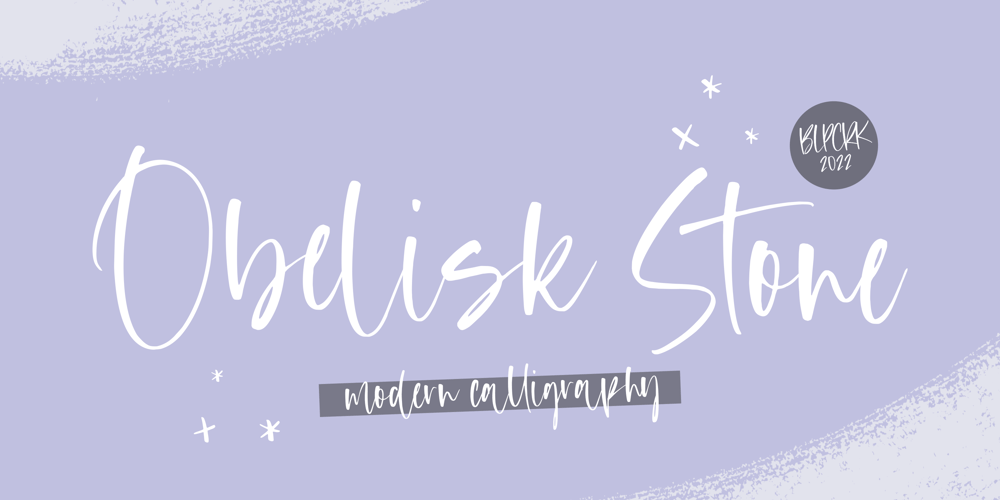
Obelisk Stone
Obelisk Stone font
Obelisk Stone Font Family was designed by Restu Angga and published by Balpirick. Obelisk Stone contains 1 styles and family package options. Obelisk Stone is a Modern Calligraphy Font.Obelisk Stone is a dazzling script font. Whatever the topic, this font will be a wonderful asset to your font library, as it has the potential to enhance any creation.- also multilingual support- LigaturesEnjoy the font, feel free to comment or feedback, send me PM or email.Thank you!